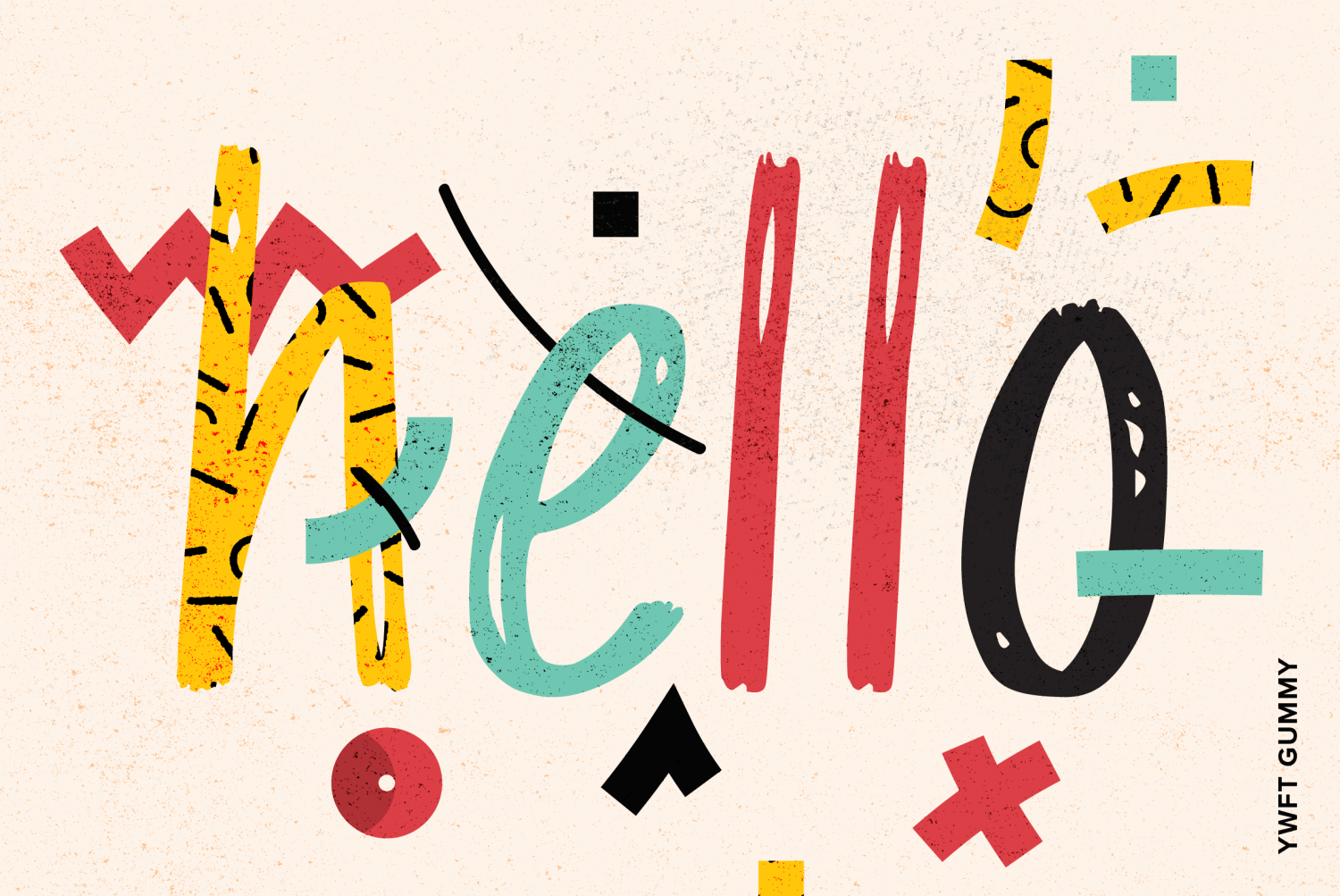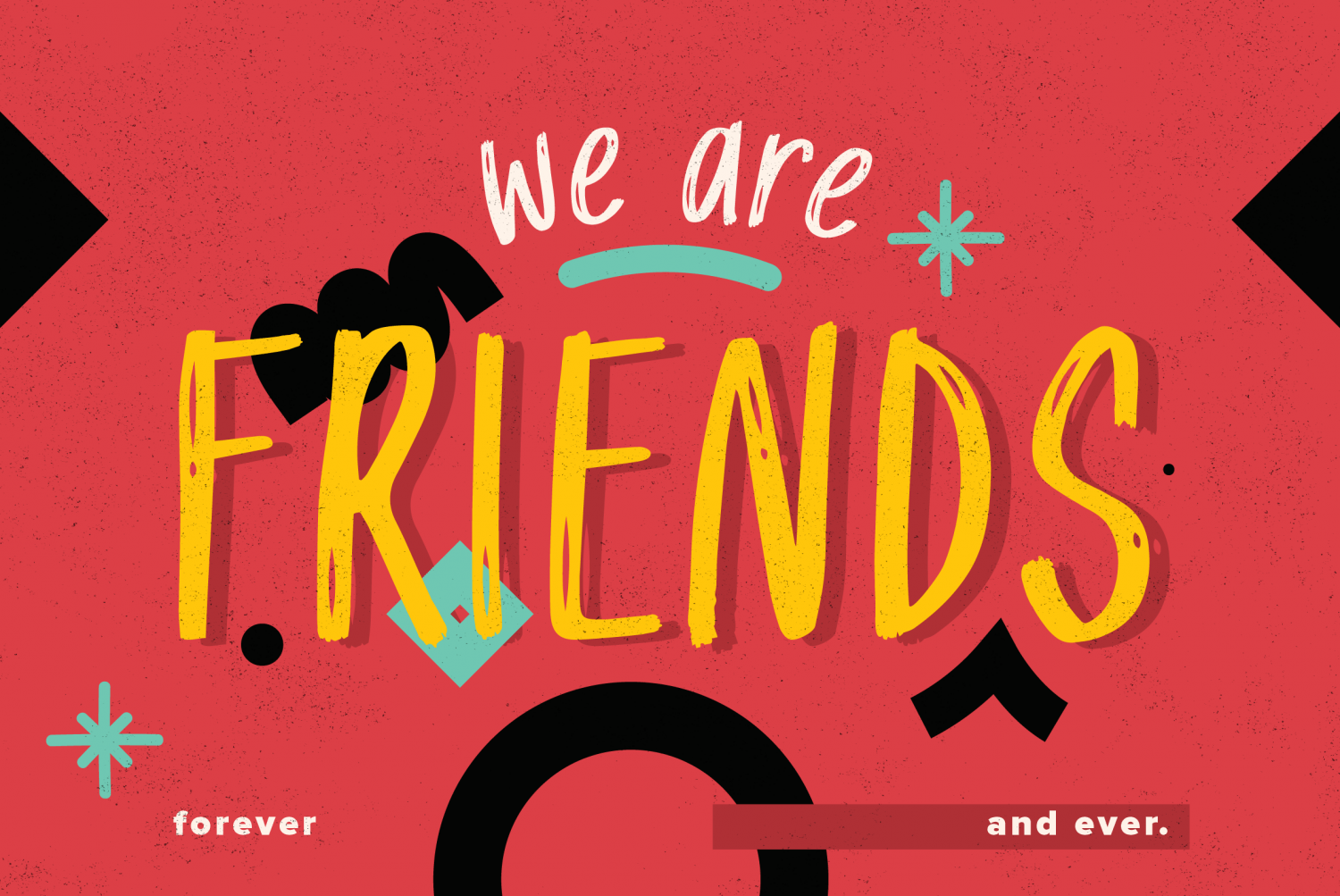
About YWFT Gummy
If spontaneity is the stuff of life, YouWorkForThem\’s latest display script is living its own life to the fullest, and that Life. Is. Sweet. YWFT Gummy is a ridiculously friendly display font that marches to the beat of its own drum. Its casual handwriting…